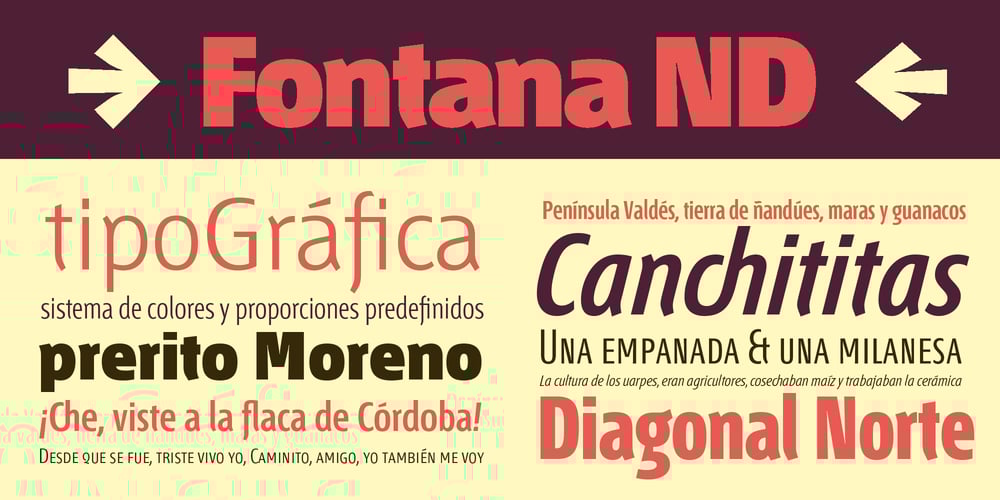
Fontana ND
Fontana ND font
Fontana ND Font Family was designed by Rubén Fontana and published by Neufville Digital. Fontana ND contains 21 styles and family package options. Designed for the printing of a magazine, the Fontana Sistema was based fundamentally on the Spanish language as its natural and cultural context. Due to the spanish colonization of America, the spanish language has been influenced by native american terms that enriched it and caused significant changes in both the sound and form of words. These sounds and forms had a strong influence on the identity of text, substantially modifying the nature and the characteristics of the composition. The Fontana Sistema we present is the fruit of our desire to design a font that, based on the spanish language, would endow the publication with identity and at the same time offer a framework for typographic research.